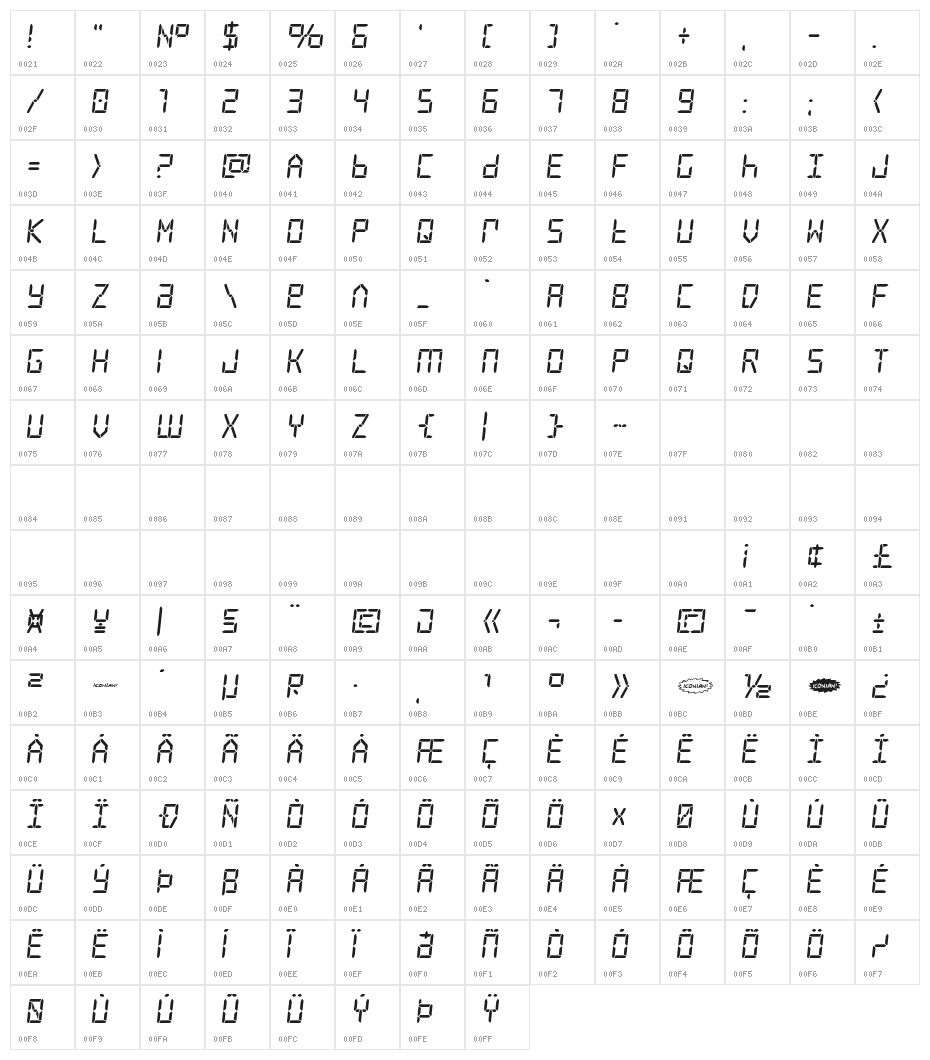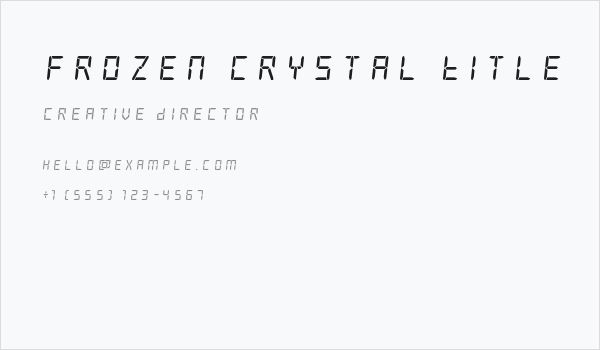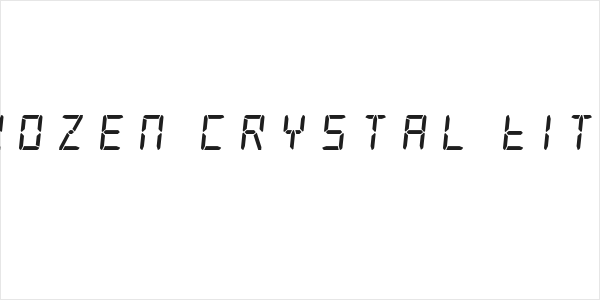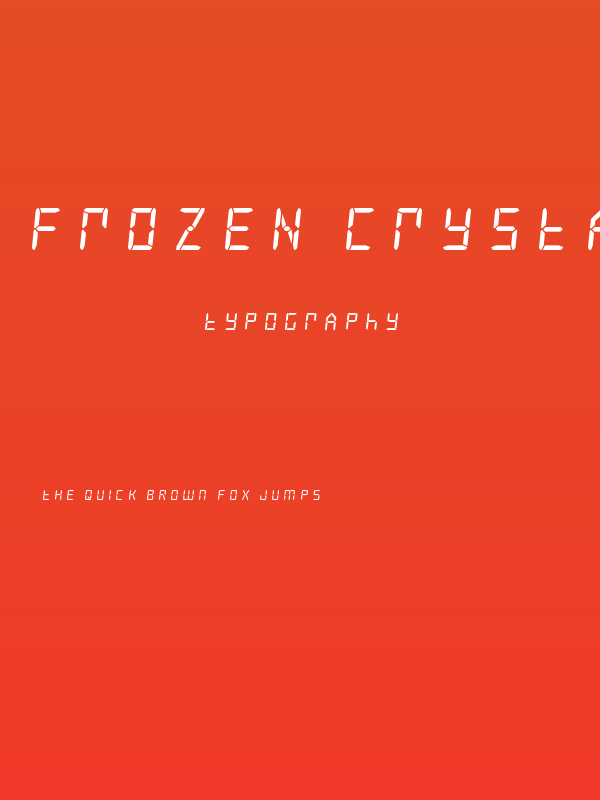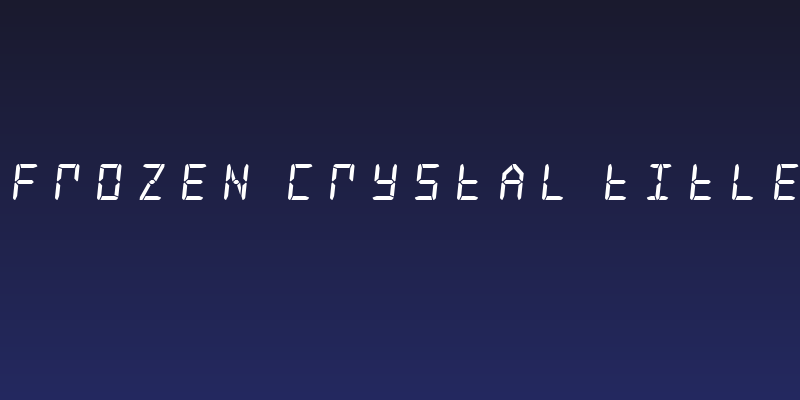
Frozen Crystal Title Font
This font features a geometric, digital-inspired design reminiscent of LED displays or digital clocks. Each character is constructed from angular segments, creating a futuristic and technical appearance. The uppercase and lowercase letters maintain a consistent style, with sharp edges and a uniform height, enhancing readability. Numbers and special characters follow the same segmented pattern, ensuring a cohesive look across all glyphs. The font's unique style makes it ideal for projects that require a modern, tech-savvy aesthetic.
| Use Case | Headlines, Logos, Digital displays |
| Proposed Projects | Ideal for digital displays, tech-themed branding, video game interfaces, and futuristic posters. |